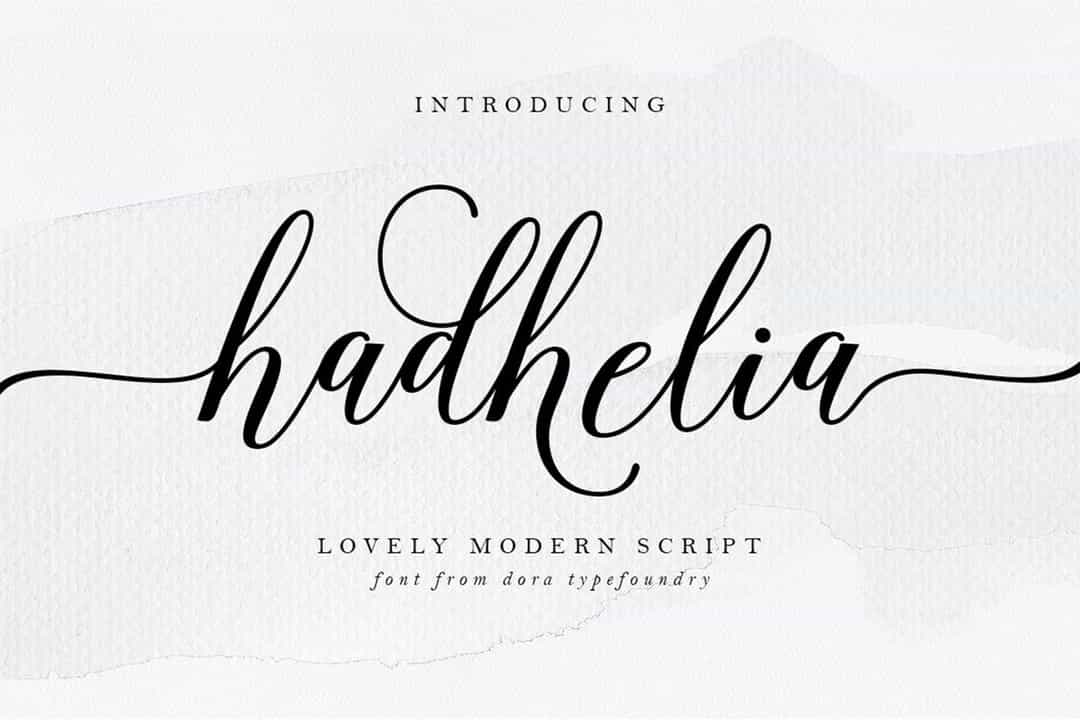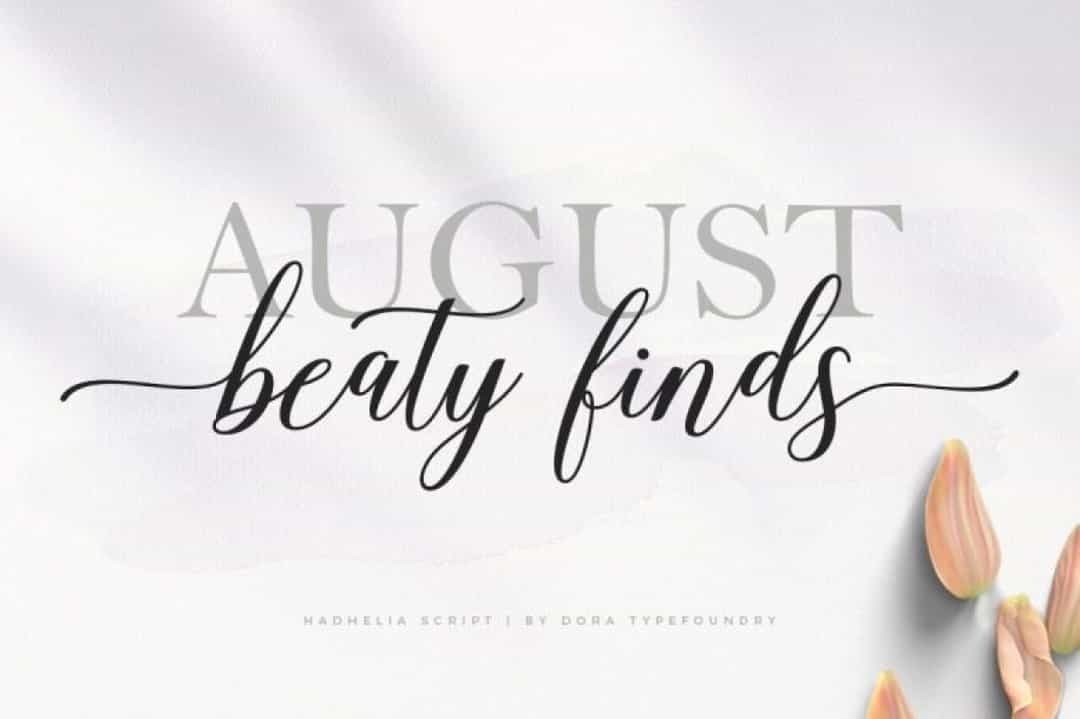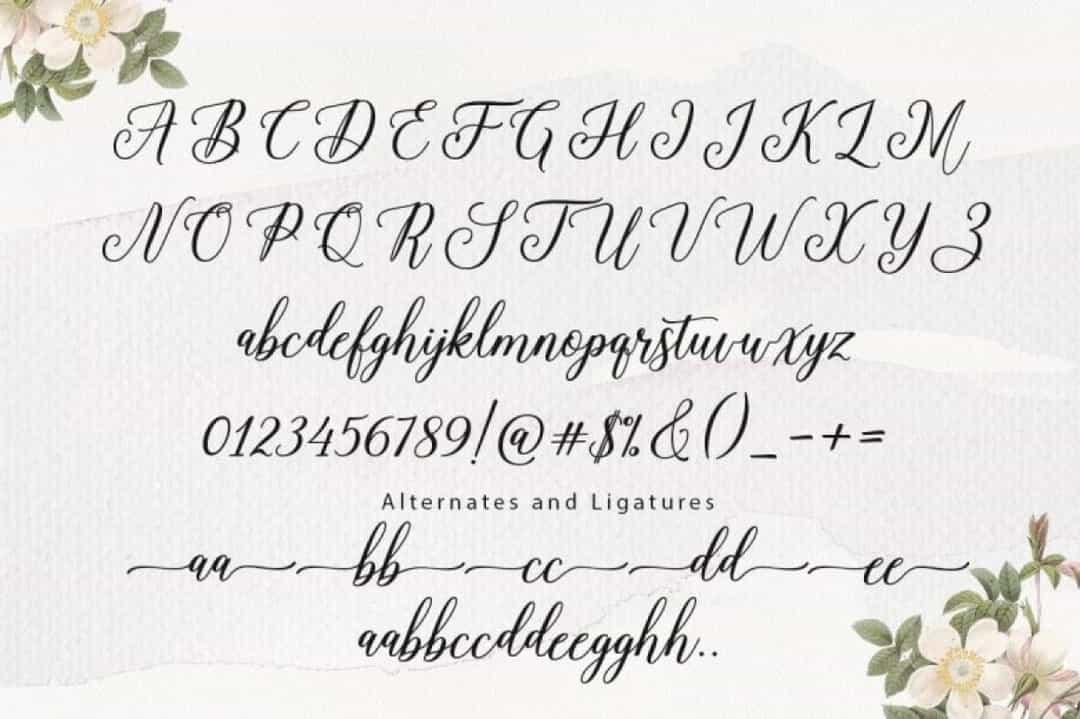
Hadhelia Font is an elegant calligraphic script typeface with moving characters. Perfect for any design idea! PUA coded for quick access to its impressive symbols and ligatures! This font is ideal for farmhouse-inspired designs rustic design branding logos t-shirt designs wedding announcements SVG wall art quotes social media updates and much more! It can also be used as part of rustic designs.